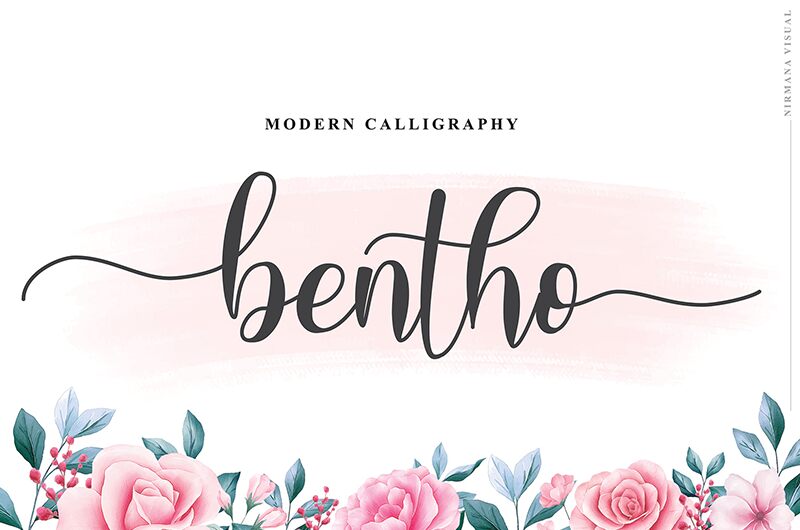
Bentho, the beautiful calligraphy font designed by Sigit Dwipa Raharjo is here to elevate your design projects. With its semi-light weight, this font is perfect for adding a touch of elegance to your designs without being too overpowering. The flowing curves and delicate strokes of Bentho make it ideal for wedding invitations, greeting cards, and other formal occasions where a sophisticated touch is required. However, don't let its formal style fool you - Bentho can also be used in modern design projects such as branding and advertising campaigns where a unique twist is needed. Try out Bentho today and watch your designs come to life!
Bentho